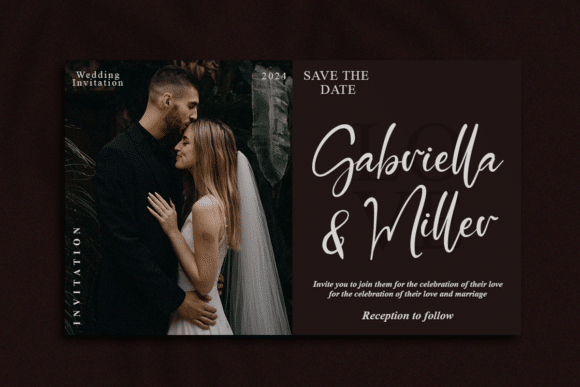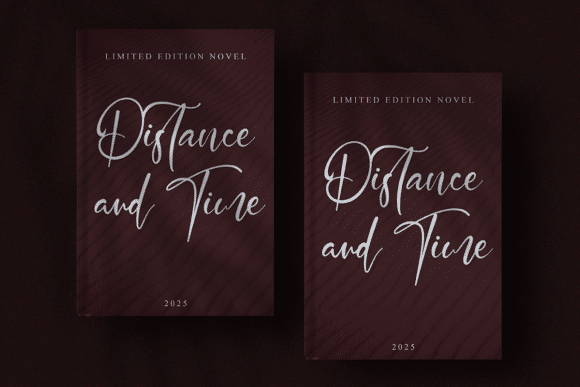
Paradise Script Font
Paradise Script is a modern and playful handwritten script font. It’s great for crafters and designers. It is perfect for any branding project such as logos, t-shirt printing, creative products, and more.